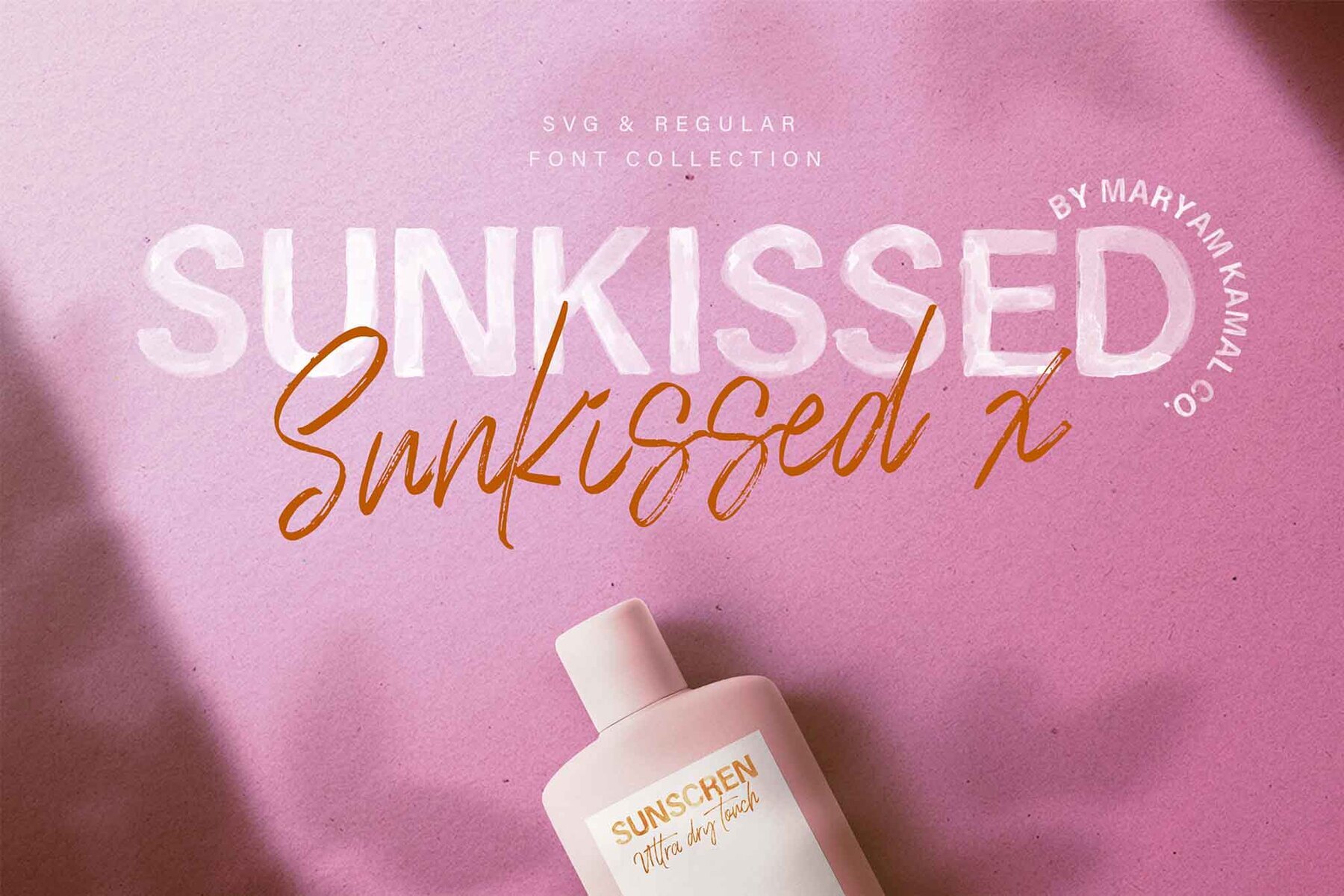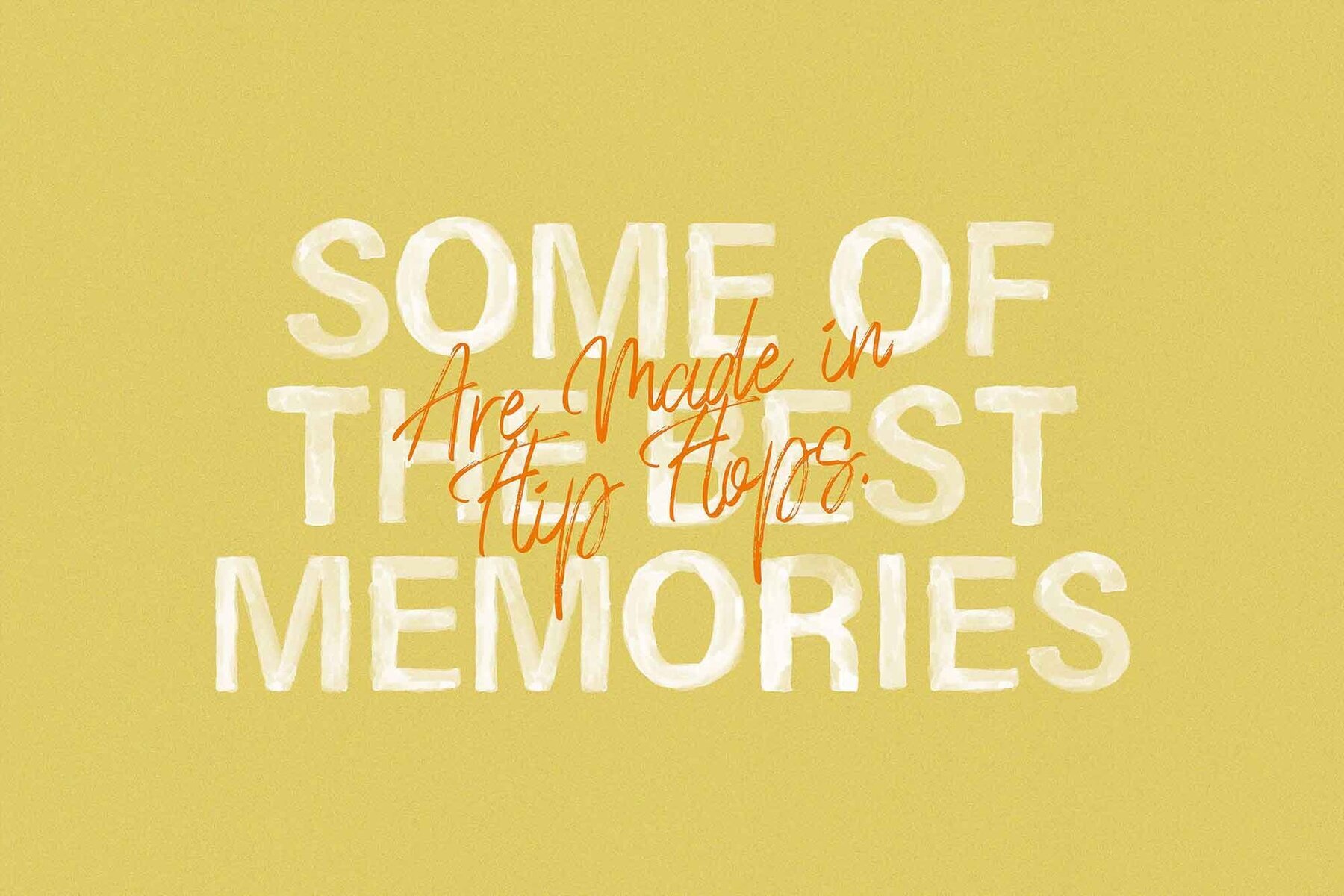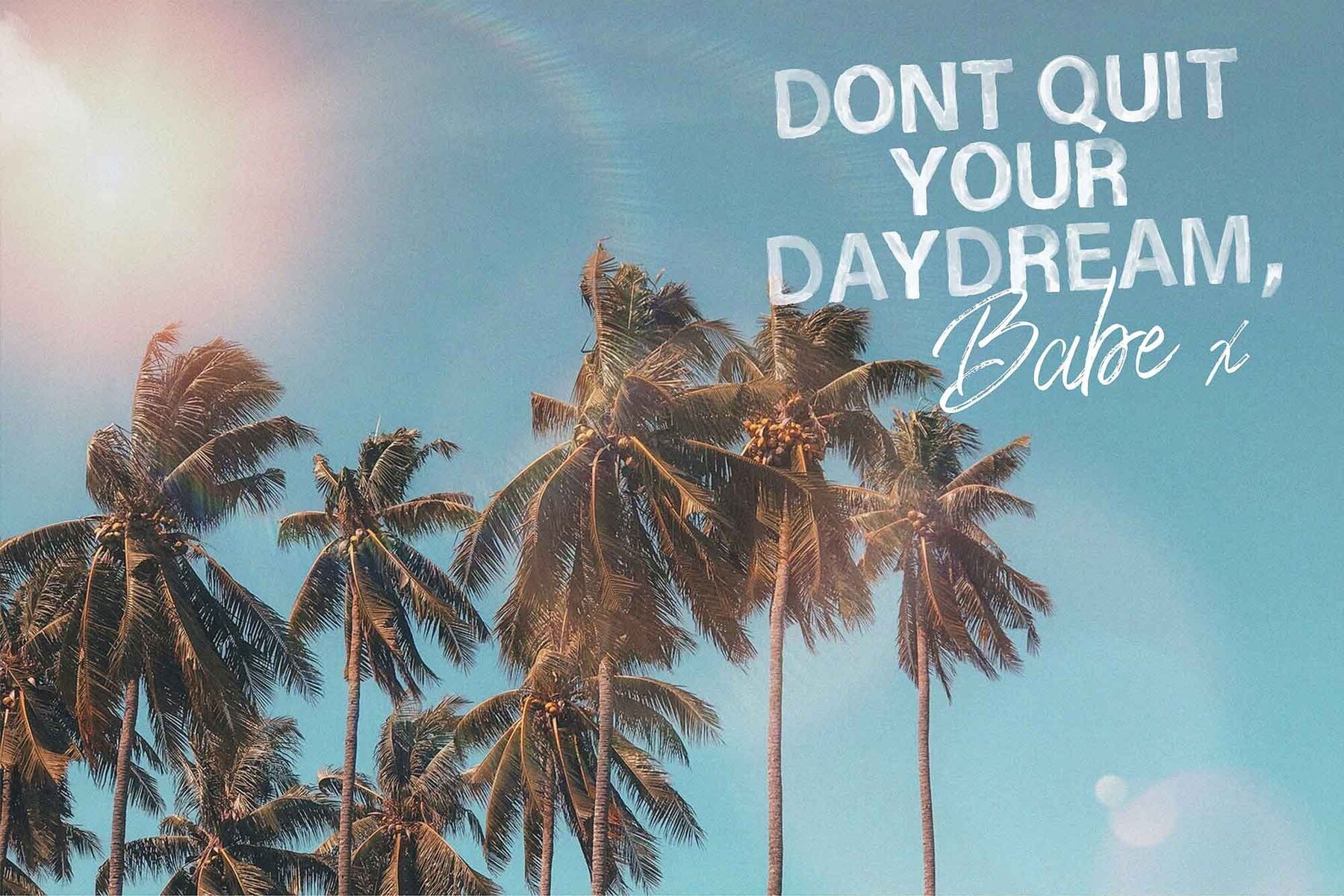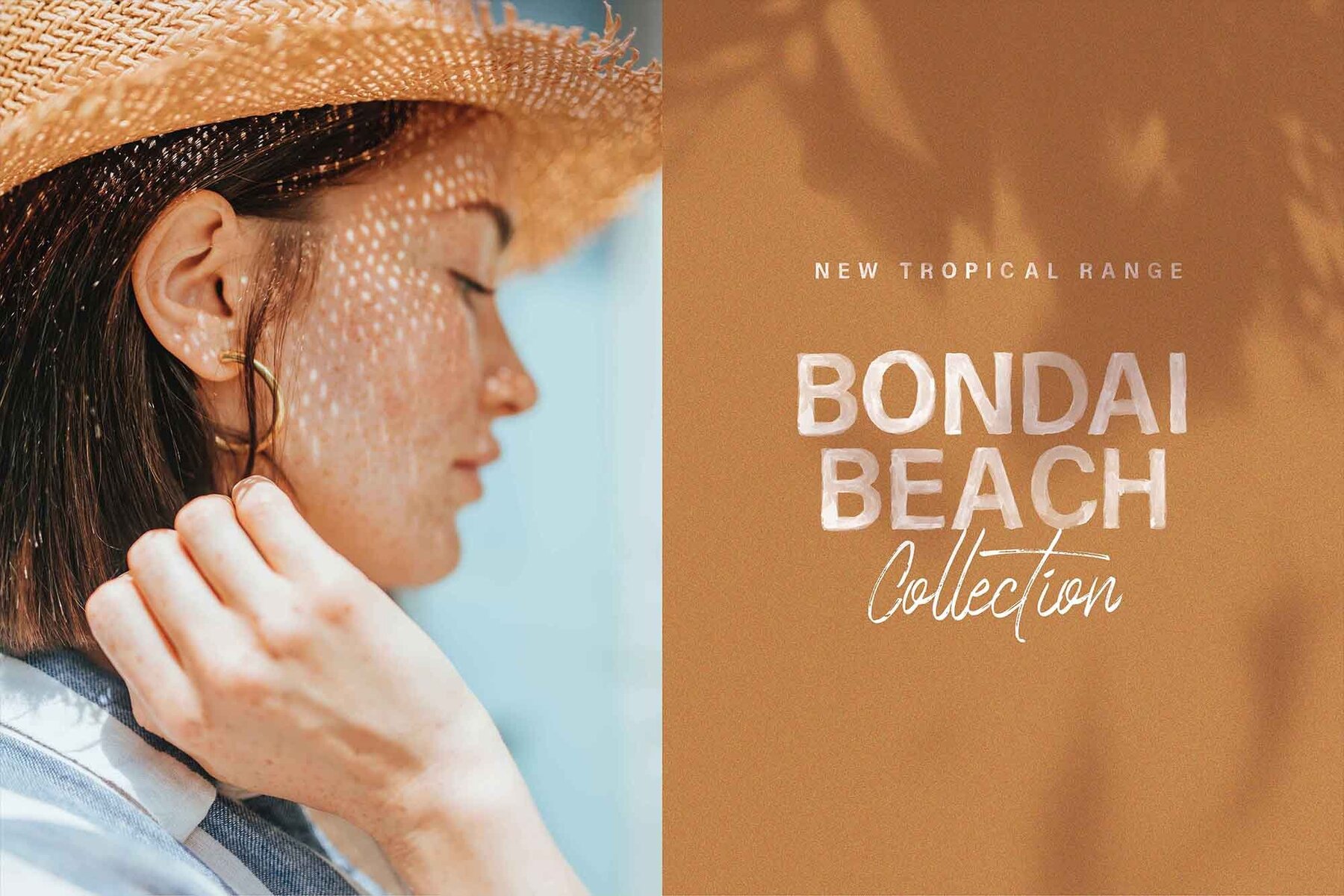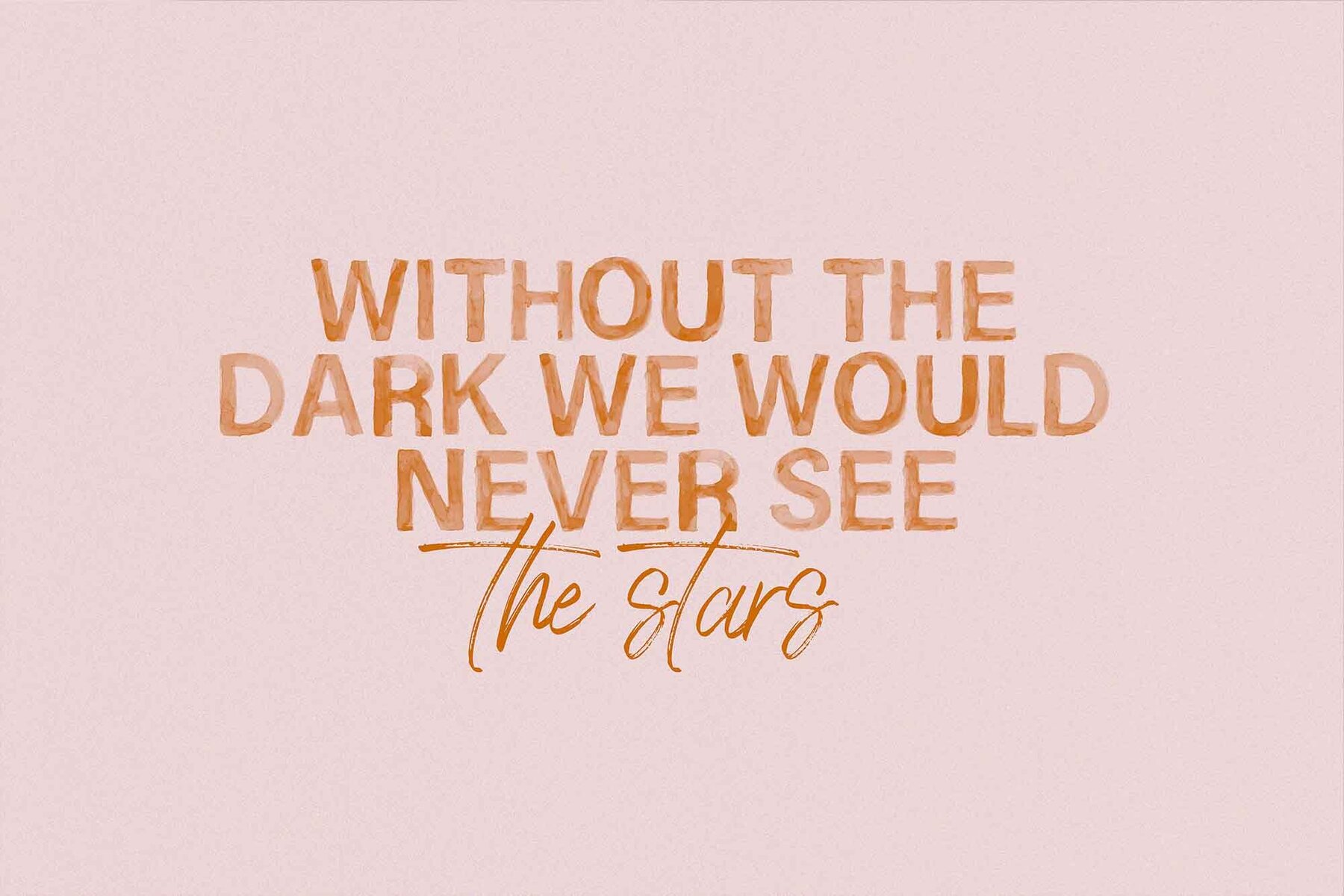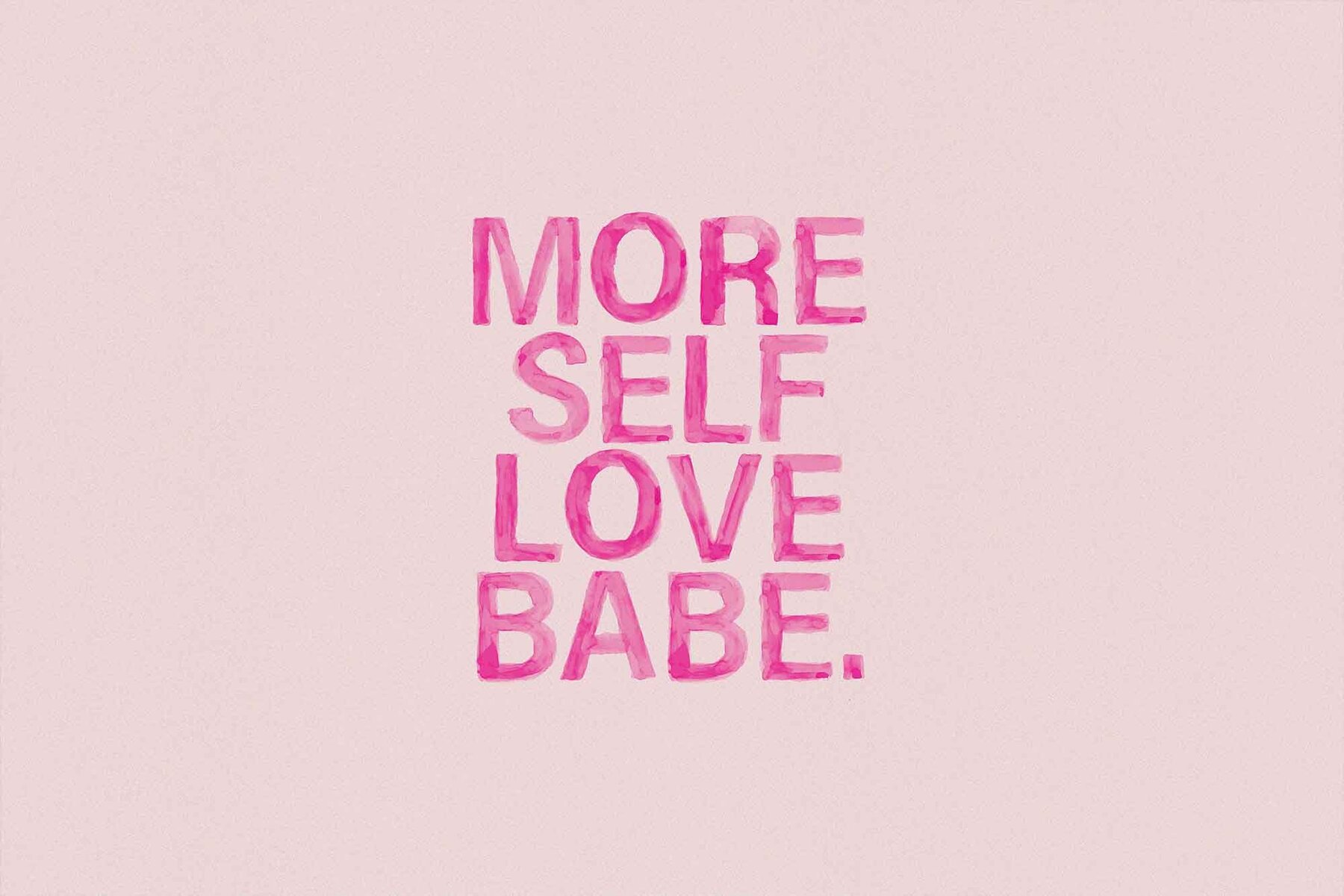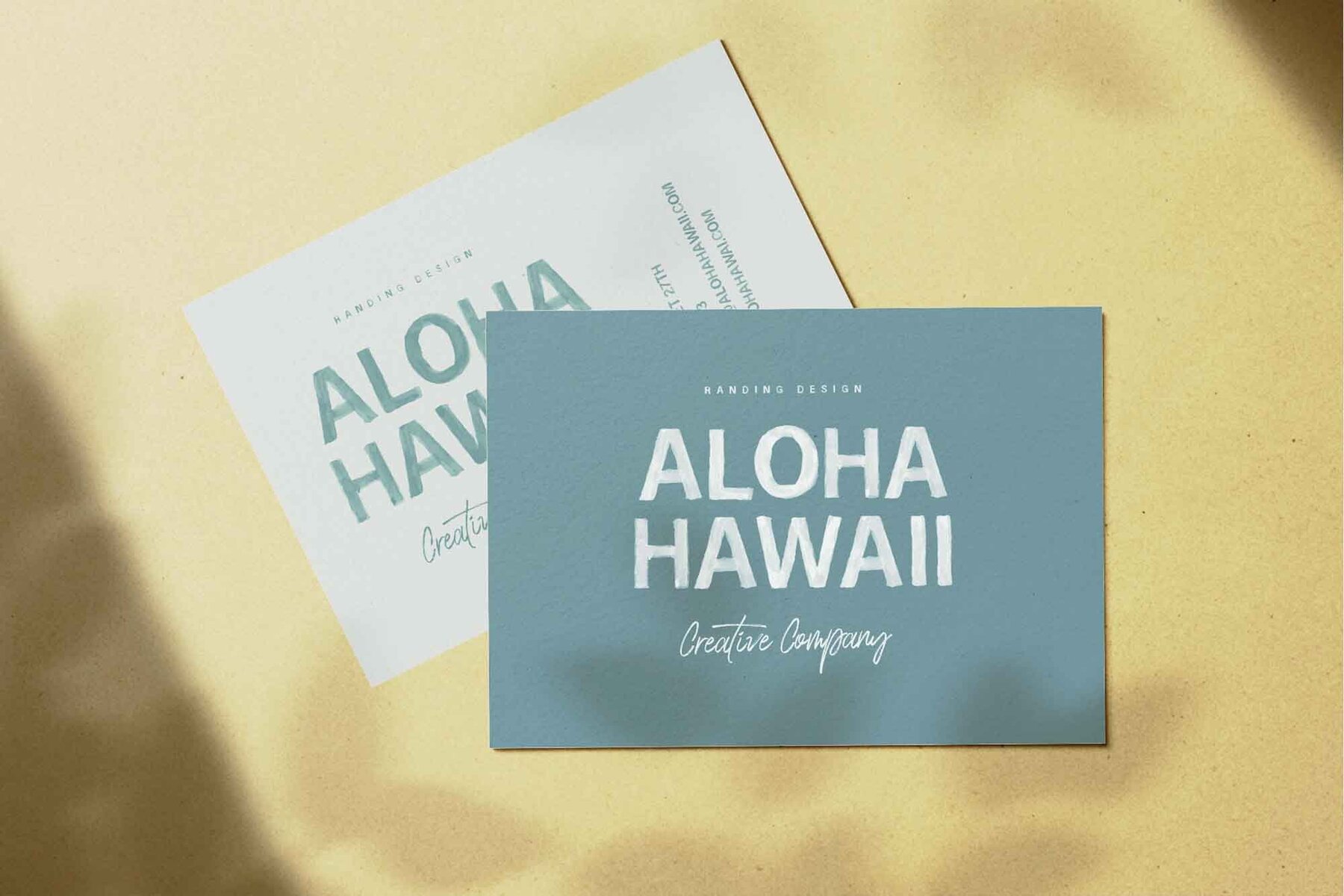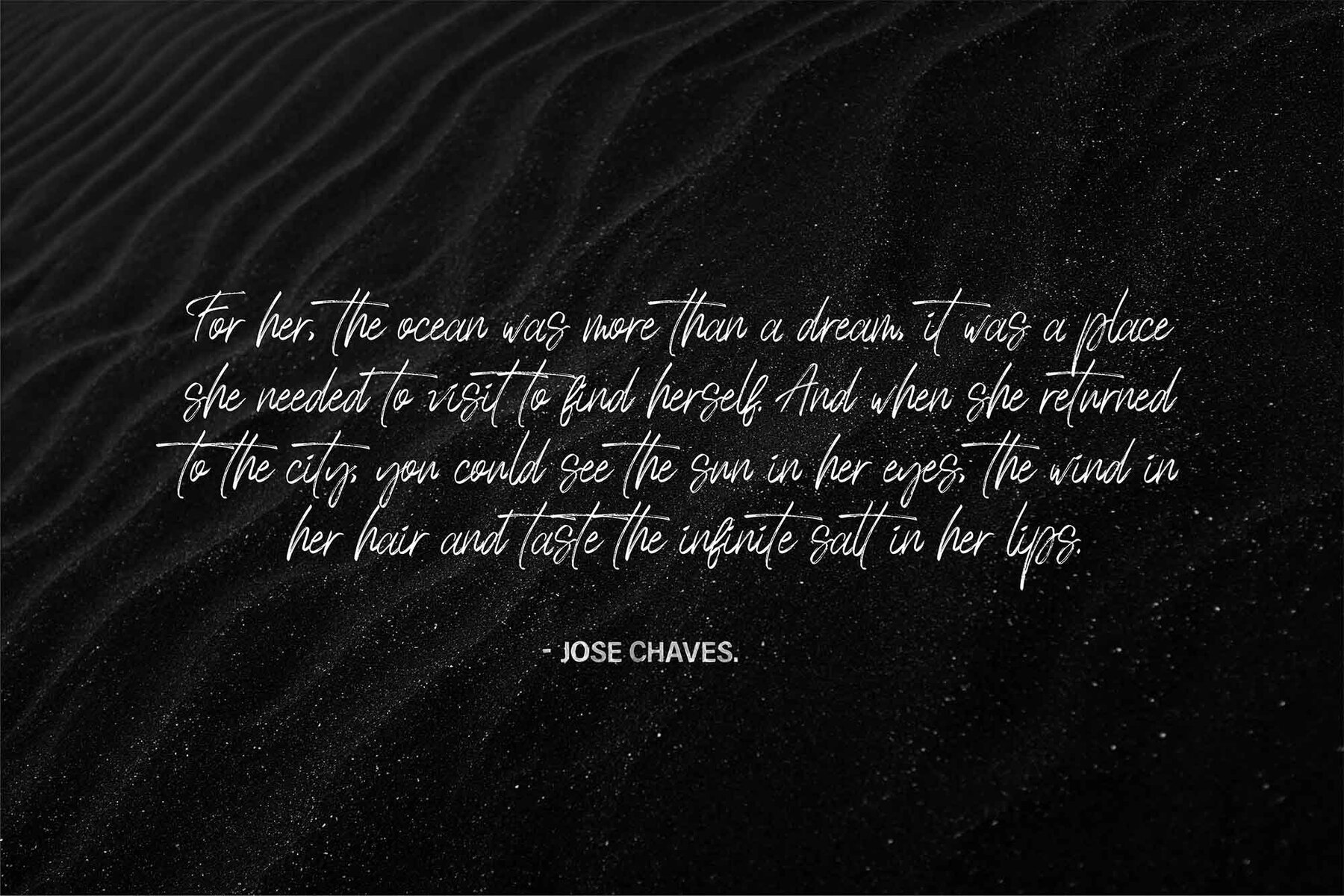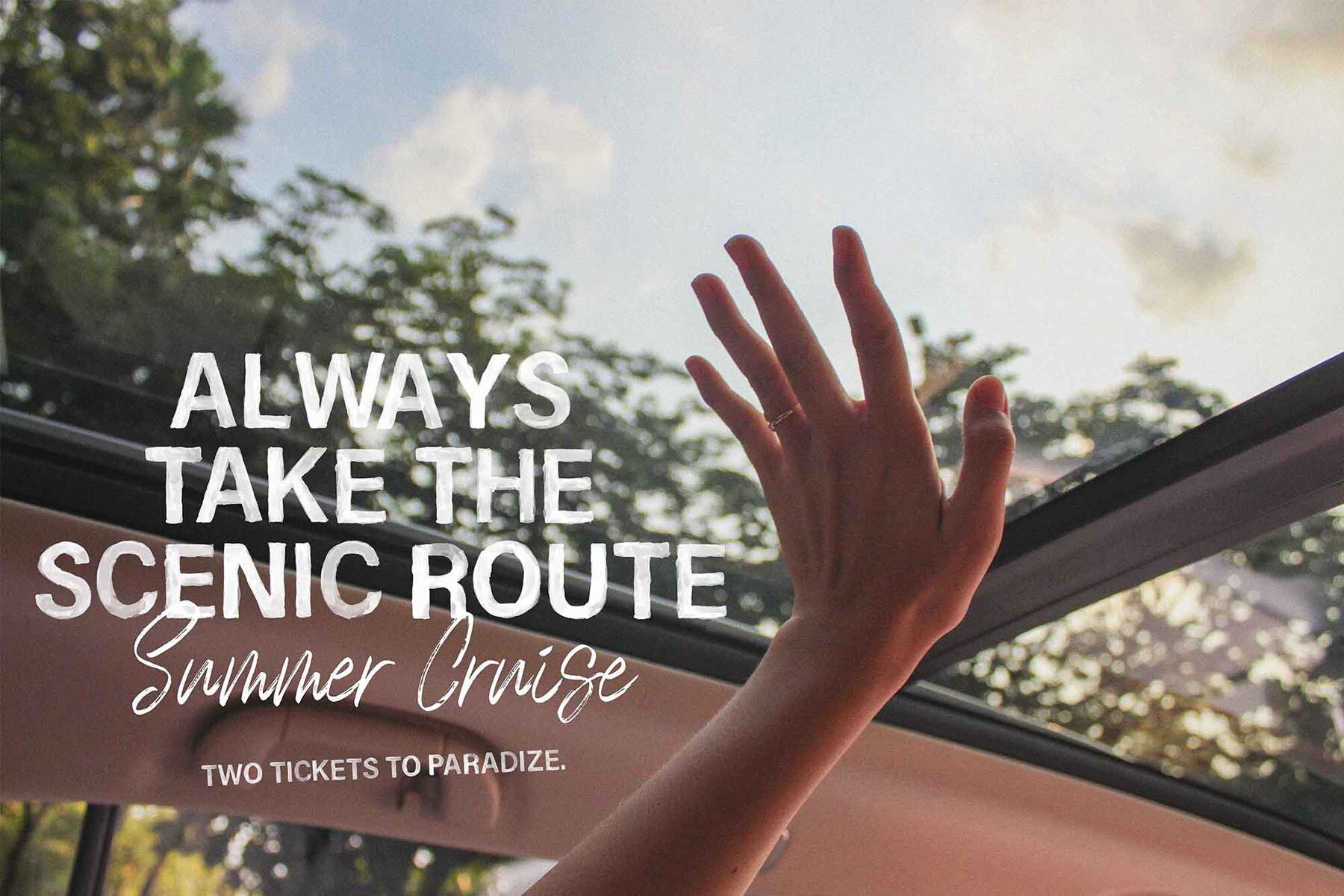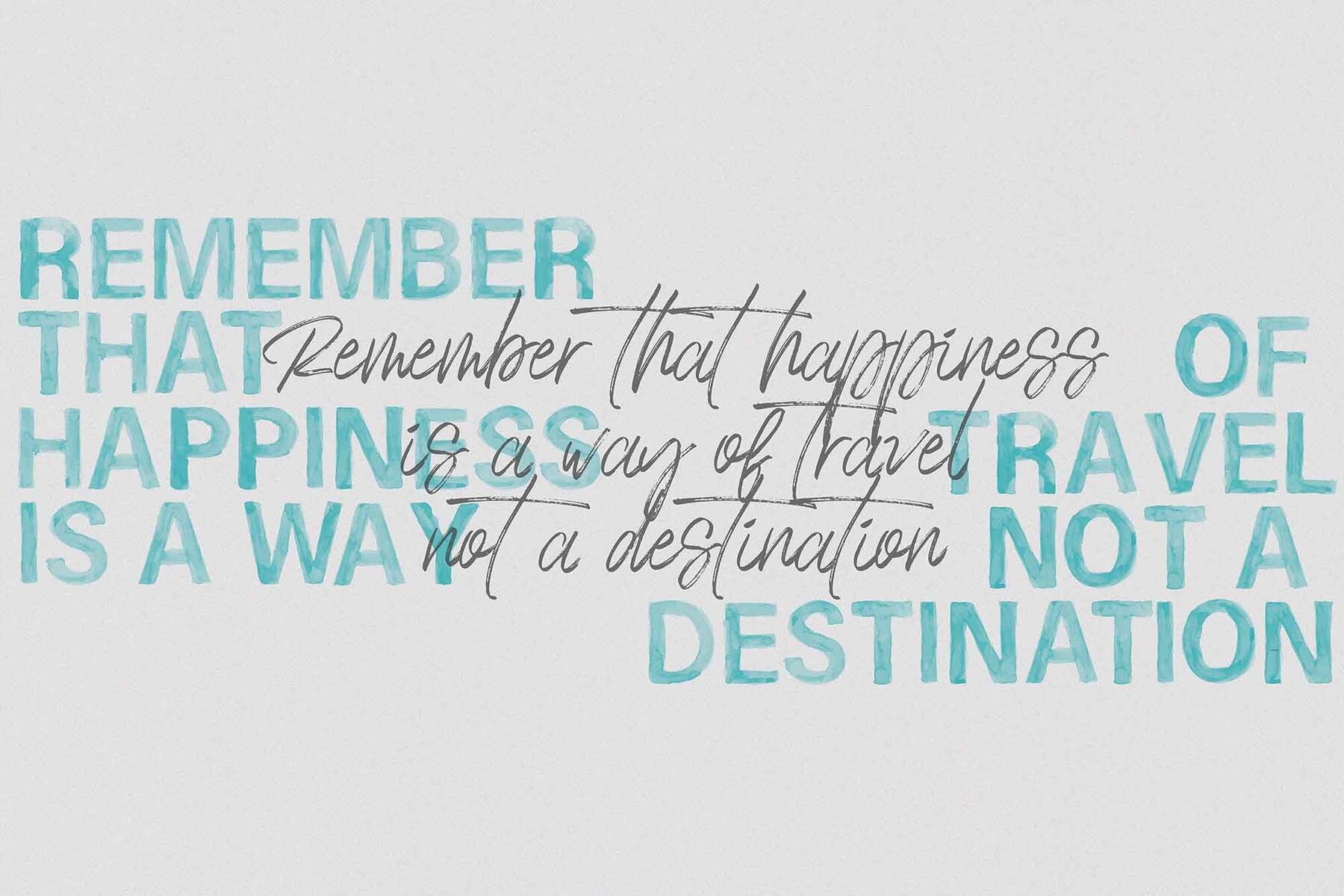
The Sunkissed Font
Get ready for some sun-kissed design with the Sunkissed x Font Duo! This trendy font collection features both an SVG watercolor sans font and a regular textured script font for you to play with. The realistic watercolor and texture of the fonts add an extra layer of character and originality to your designs that you won't find with regular fonts. Whether you want to create logos, posters, social media graphics, or anything else, Sunkissed x Font Duo gives you limitless possibilities to play with. The textured script font was designed to complement the watercolor sans font, but it also looks fantastic on its own. It's important to note that the SVG watercolor font is relatively new technology and requires Photoshop CC 2017 or Illustrator CC 2018 (or newer) to use. However, the regular script font can be used in most software. Included in the package is a demo on how to unzip and get started using the fonts, so you'll be creating beautiful designs in no time. So grab your favorite shades and let Sunkissed x Font Duo bring some sunshine to your next project!